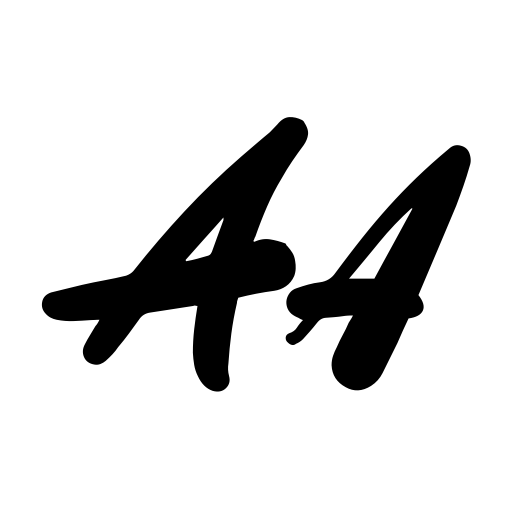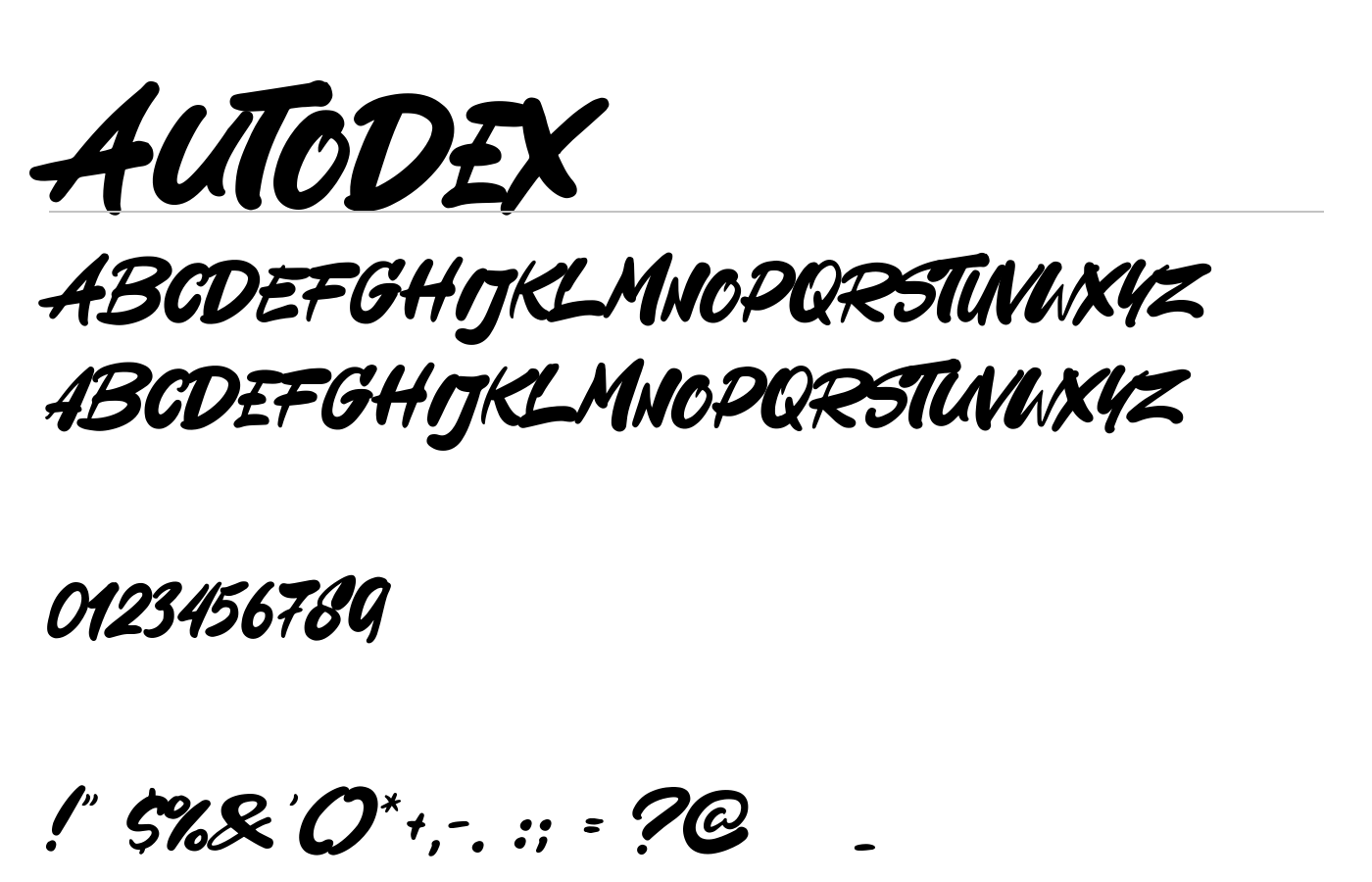
Autodex is a bold, brush-style script font that exudes energy and casual flair with its slightly condensed, dynamic letterforms and smooth, rounded strokes. Its lively, handwritten appearance makes it perfect for creative branding, posters, and eye-catching headlines where a sense of personality and movement is desired. This font works well in designs needing an informal yet confident feel, adding a touch of artistic spontaneity.
Autodex Font
About Autodex Font
| Font family | Autodex Font |